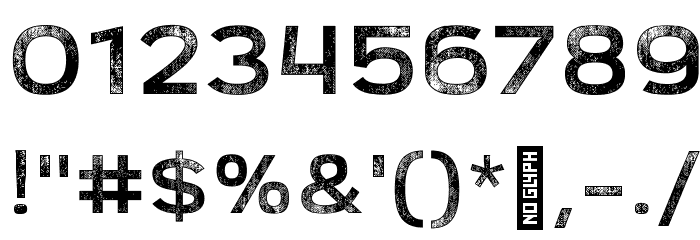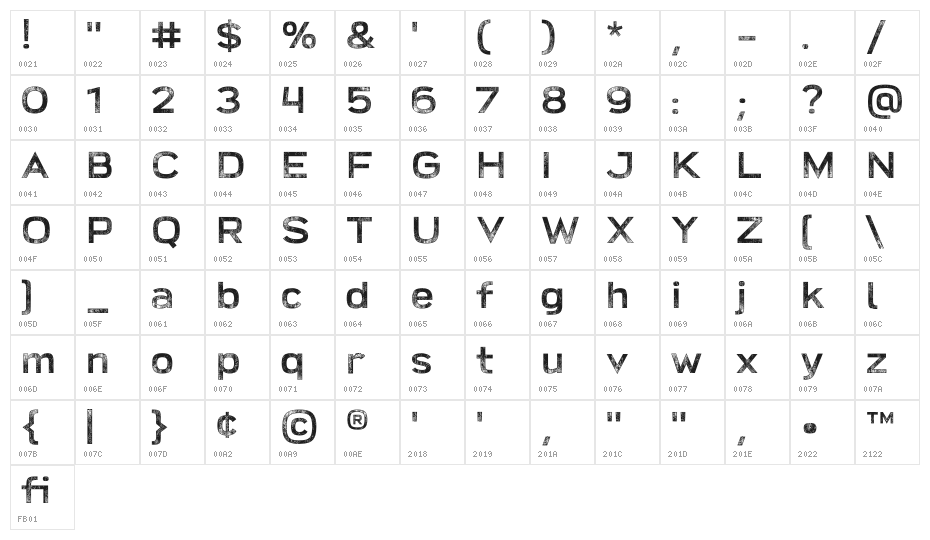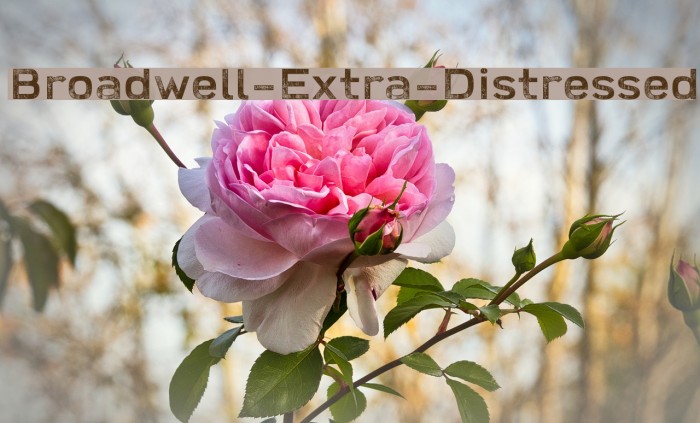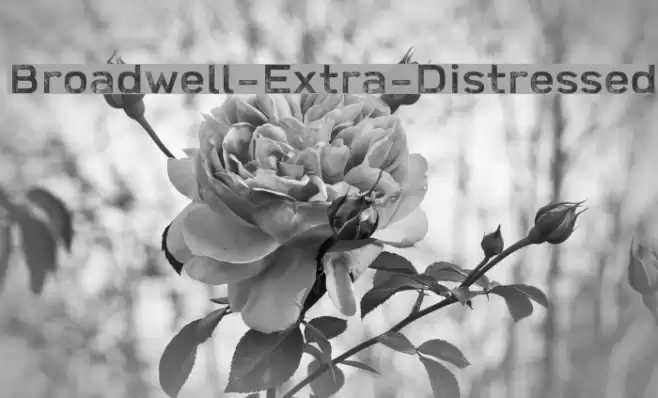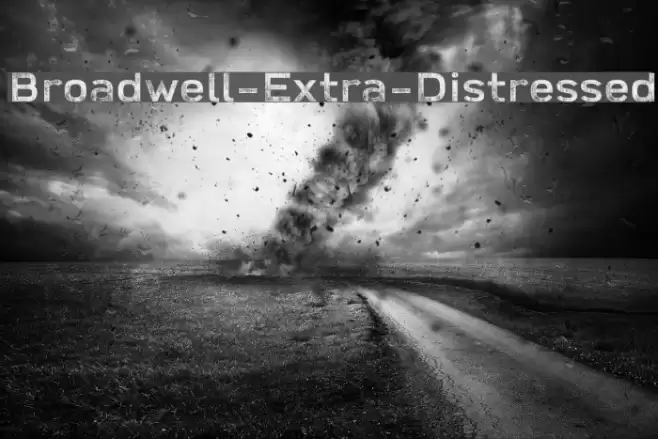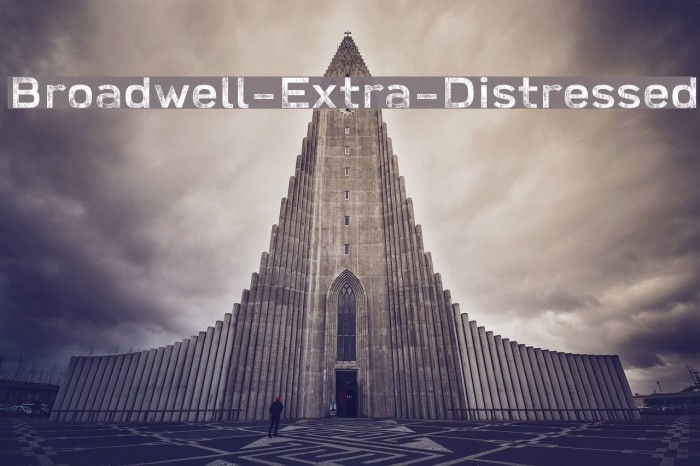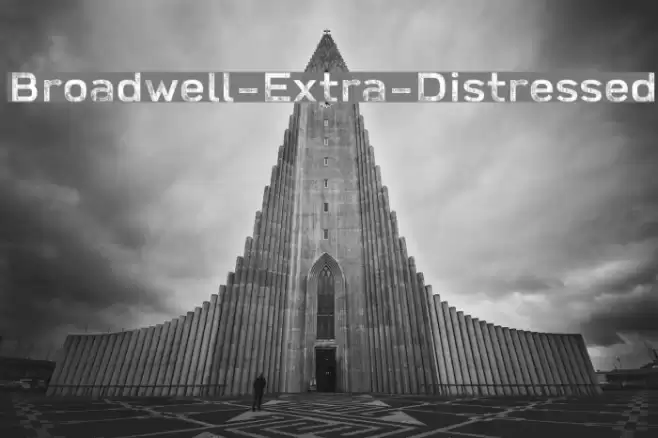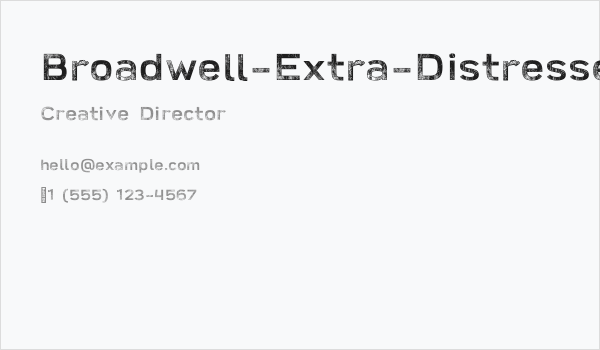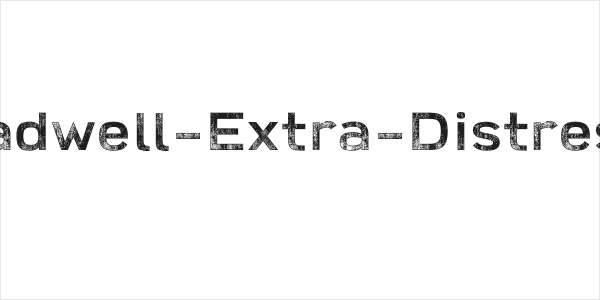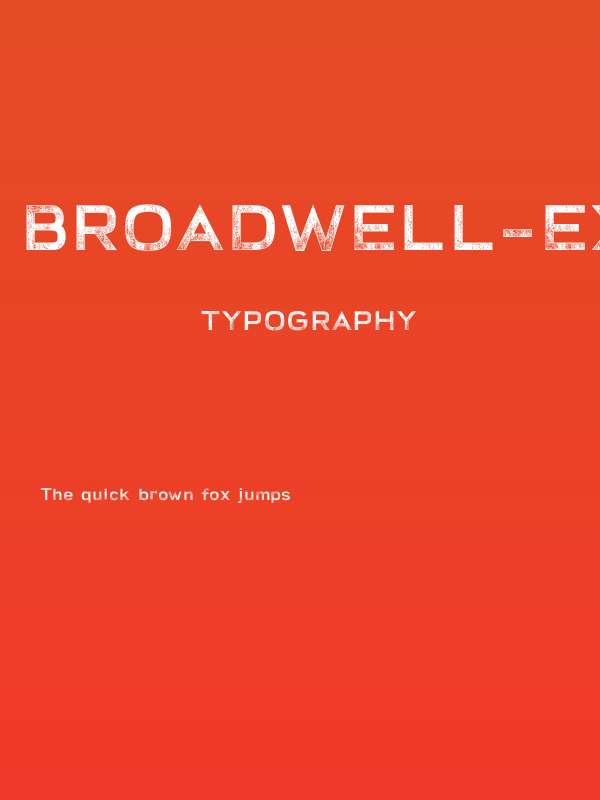
Broadwell-Extra-Distressed Font
Broadwell-Extra-Distressed Description
This font features a distressed, textured appearance that gives it a rugged and worn look. The characters are bold and impactful, with a slightly uneven texture that adds a vintage, industrial feel. The uppercase and lowercase letters maintain a consistent style, with clean lines and a strong presence. The numerals and special characters are equally bold, ensuring readability while maintaining the distressed aesthetic. This font is ideal for projects that require a gritty, authentic look, such as posters, branding, and packaging designs.
| Proposed Projects | Ideal for posters, branding, packaging designs, and any project requiring a gritty, vintage look. |